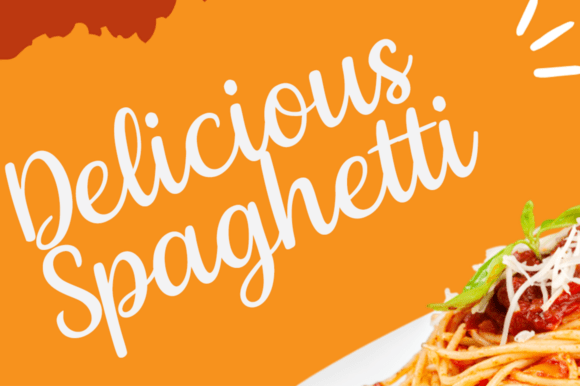
Elvaira Font
Elvaira is a refined and contemporary script font that captures the ease of natural handwriting with smooth curves and graceful strokes. Its clean, flowing style lends a polished, sophisticated touch to a wide range of design applications, including branding and logo design, invitations and greeting cards, packaging and product labeling, as well as quotes, headlines, planners, and social media visuals.
With harmonious letterforms and a versatile aesthetic, Elvaira offers a compelling balance of elegance and readability, making it an excellent choice for both digital and print use.